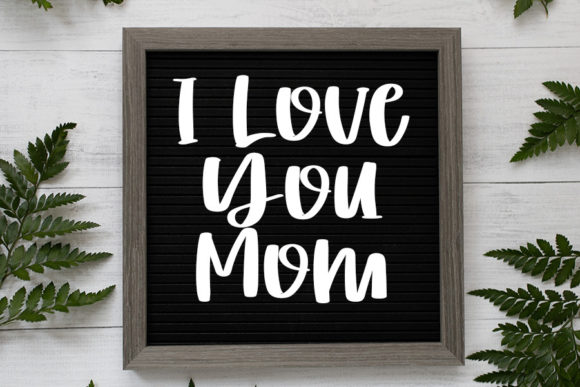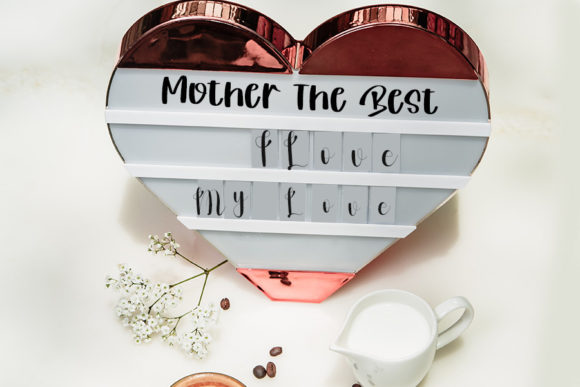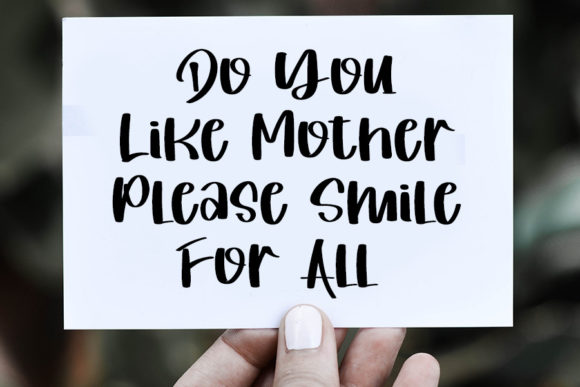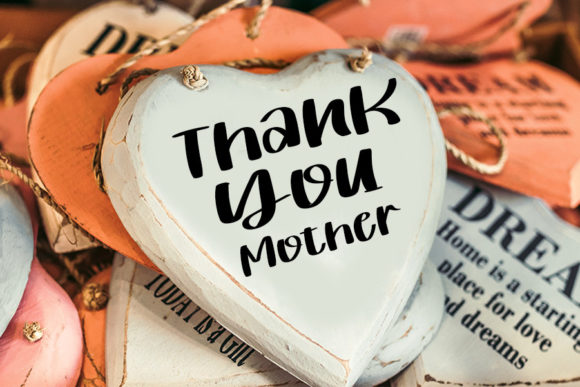
A Mother’s Love Font: Elevate Your Designs with a Touch of Nostalgia
As a designer or crafter, you’re constantly on the lookout for the perfect font to bring your projects to life. A mother’s love is a universal symbol of care, support, and devotion. What if you could capture that essence in a font that exudes warmth, confidence, and style? Look no further than A Mother’s Love Font, a gorgeous and friendly handwritten font that’s sure to become your go-to for headlines and logotype projects.
The Story Behind A Mother’s Love Font
A Mother’s Love Font is more than just a collection of letters and symbols – it’s a reflection of the love and care that mothers around the world share with their families. This beautiful font is crafted to evoke a sense of nostalgia, transporting you and your audience back to a time when life was simpler, and love was freely given. With its strong, confident, and dynamic feel, A Mother’s Love Font is the perfect way to add a touch of warmth and personality to your designs.
What Makes A Mother’s Love Font So Special?
So, what sets A Mother’s Love Font apart from other fonts on the market? Here are just a few reasons why this font is sure to become a favorite among designers and crafters:
• Handwritten with love: A Mother’s Love Font is a true handwritten font, crafted with care and attention to detail to ensure that every letter and symbol is unique and full of character.
• Strong and confident: This font exudes confidence and strength, making it perfect for headlines, logotypes, and other projects where you want to make a statement.
• Nostalgic charm: A Mother’s Love Font has a way of transporting you back to a simpler time, evoking memories of childhood and the love of a mother.
• Versatile: Whether you’re working on a digital project or a print design, A Mother’s Love Font is versatile enough to adapt to any style or format.
A Mother’s Love Font is a dream come true for designers and crafters who want to add a personal touch to their projects. Here are just a few ways you can use this beautiful font:
• Headlines and titles: Use A Mother’s Love Font to create eye-catching headlines and titles that grab attention and convey confidence.
• Logotypes and branding: Create a lasting impression with a custom logotype or branding that showcases your unique style and personality.
• Stationery and invitations: Add a touch of elegance and sophistication to your stationery and invitations with A Mother’s Love Font.
• Digital projects: Use A Mother’s Love Font to create stunning digital projects, from social media graphics to website headers.
Tips for Using A Mother’s Love Font
To get the most out of A Mother’s Love Font, here are a few tips to keep in mind:
• Experiment with colors: A Mother’s Love Font looks stunning in a variety of colors, from soft pastels to bold brights.
• Mix and match: Combine A Mother’s Love Font with other fonts to create a unique and eye-catching look.
• Play with sizes: Use A Mother’s Love Font in a range of sizes to create visual interest and hierarchy in your designs.